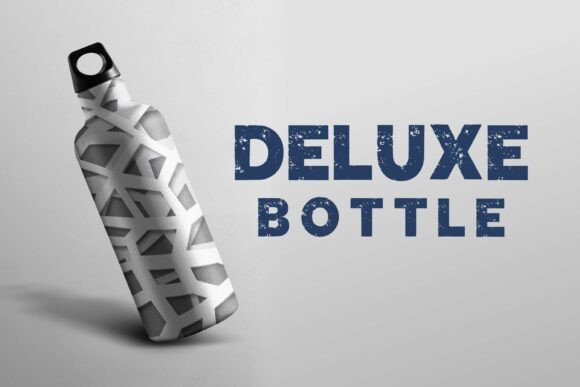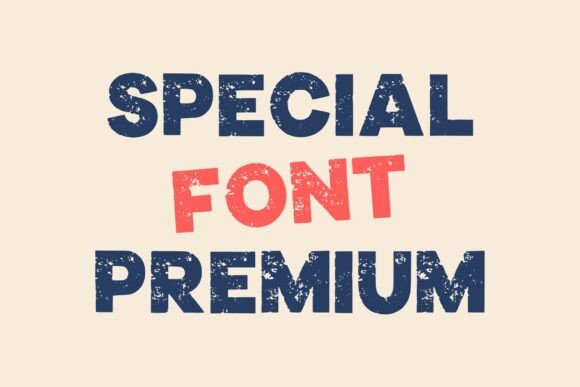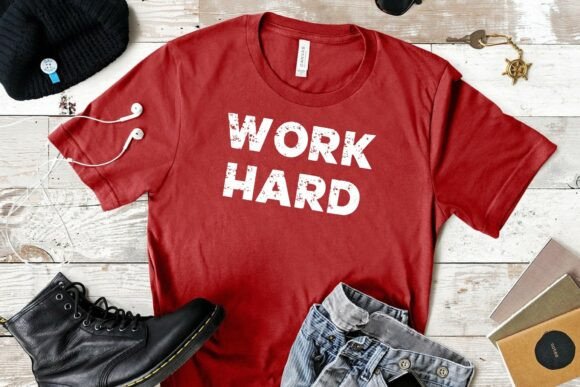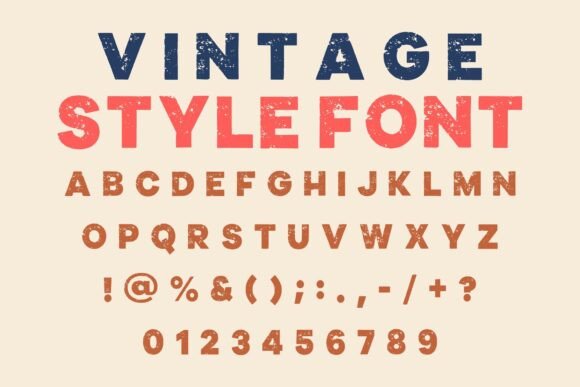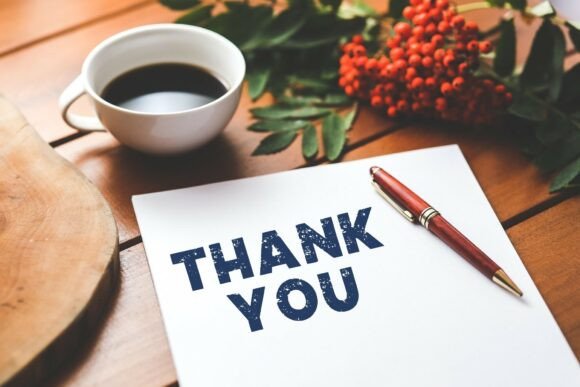
Unleash the Raw Energy of Urban Rebellion with Abstract Grunge Font
In the world of typography, few fonts capture the essence of urban rebellion and underground design as perfectly as the Abstract Grunge Font. This bold and distressed typeface is a true embodiment of authentic grit, featuring rough textures, imperfect edges, and a fearless attitude that instantly demands attention. If you’re a designer or crafter looking to add a touch of edginess to your projects, Abstract Grunge is the perfect choice.
The Essence of Grunge Culture
Grunge culture emerged in the late 1980s and early 1990s, characterized by its DIY ethos, flannel shirts, and ripped jeans. It was a movement that rejected the glamour and glitz of mainstream culture, opting for a raw, unpolished aesthetic instead. The Abstract Grunge Font is a perfect representation of this movement, with its rough, distressed texture and unapologetically imperfect design.
Design Features of Abstract Grunge Font
The Abstract Grunge Font boasts a range of design features that make it perfect for creating bold, eye-catching designs. Some of its key features include:
• Rough textures: The font features rough, distressed textures that give it a worn, vintage look.
• Imperfect edges: The edges of the letters are imperfect and rough, adding to the font’s gritty, urban feel.
• Bold and chunky: The font is bold and chunky, making it perfect for creating designs that demand attention.
• Uppercase and lowercase: The font includes both uppercase and lowercase letters, making it versatile and easy to use.
Use Cases for Abstract Grunge Font
The Abstract Grunge Font is perfect for a wide range of design projects, including:
• Posters: Create bold, eye-catching posters for concerts, festivals, or other events.
• Album covers: Give your music a grungy, underground feel with a distressed album cover.
• Streetwear branding: Add a touch of edginess to your streetwear brand with a bold, grungy logo.
• Movie titles: Create bold, attention-grabbing movie titles that reflect the film’s gritty, urban aesthetic.
• Edgy graphic design: Add a touch of grit and attitude to your graphic designs with the Abstract Grunge Font.
Why Choose Abstract Grunge Font?
So why choose the Abstract Grunge Font for your design projects? Here are just a few reasons:
• Authentic grit: The font embodies authentic grit and attitude, giving your designs a raw, unpolished feel.
• Versatility: The font is versatile and easy to use, making it perfect for a wide range of design projects.
• Handcrafted feel: The font’s distressed texture and imperfect edges give it a handcrafted feel that’s perfect for designers and crafters.
• Instant attention: The font’s bold, chunky design demands attention, making it perfect for creating eye-catching designs.
In conclusion, the Abstract Grunge Font is a bold and distressed typeface that’s perfect for designers and crafters looking to add a touch of edginess to their projects. With its rough textures, imperfect edges, and fearless attitude, this font embodies authentic grit and attitude. Whether you’re creating posters, album covers, streetwear branding, or edgy graphic design, the Abstract Grunge Font is the perfect choice. So why settle for a bland, generic font when you can unleash the raw energy of urban rebellion with the Abstract Grunge Font?